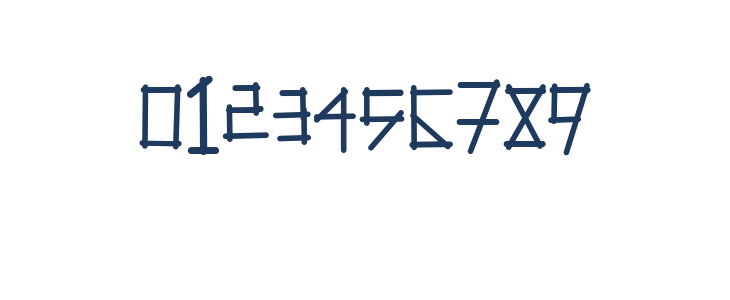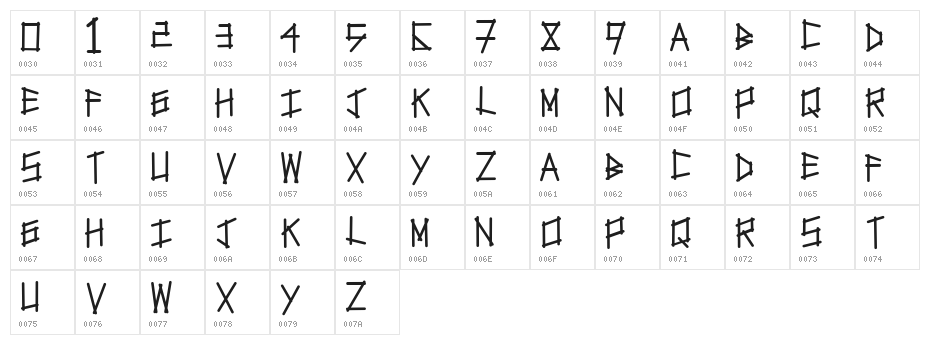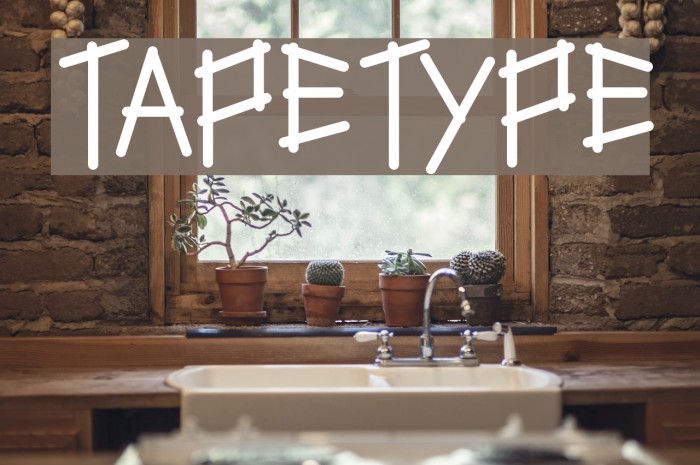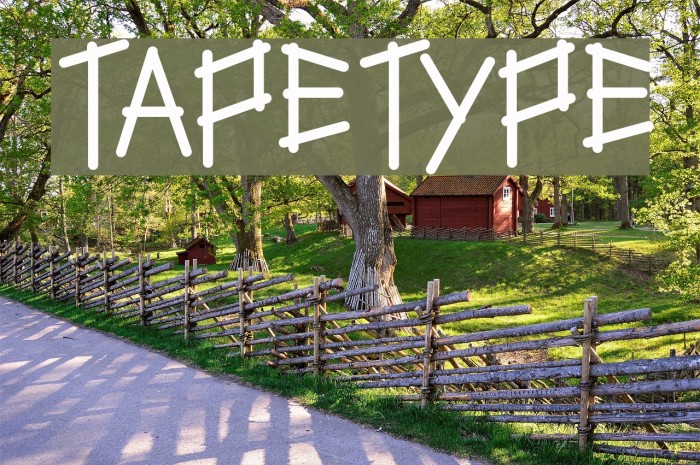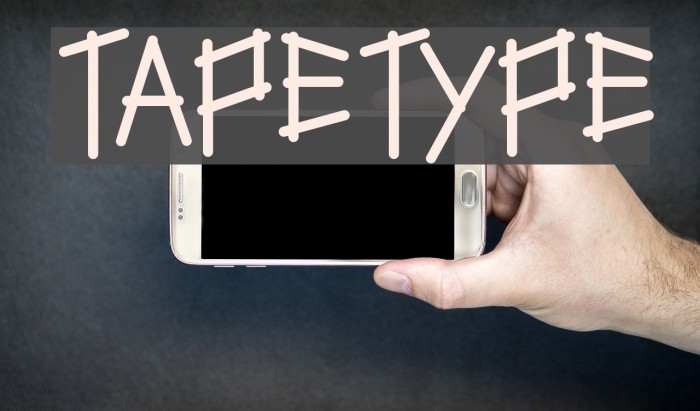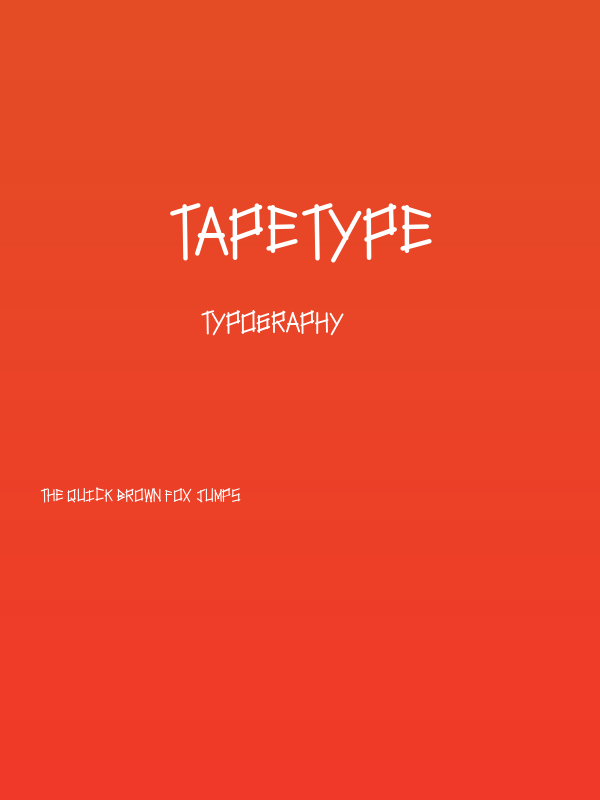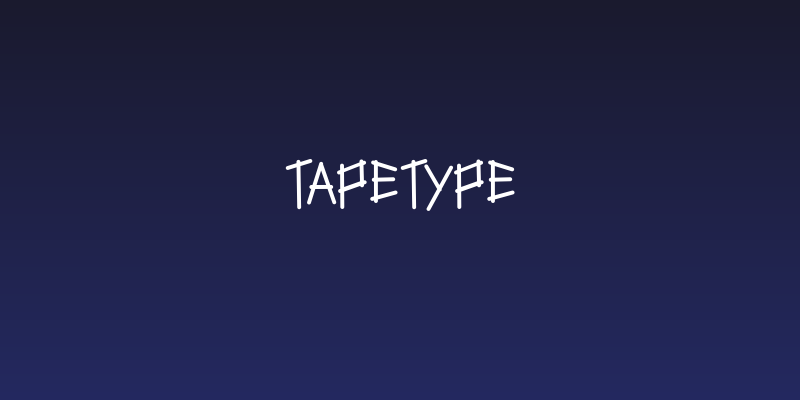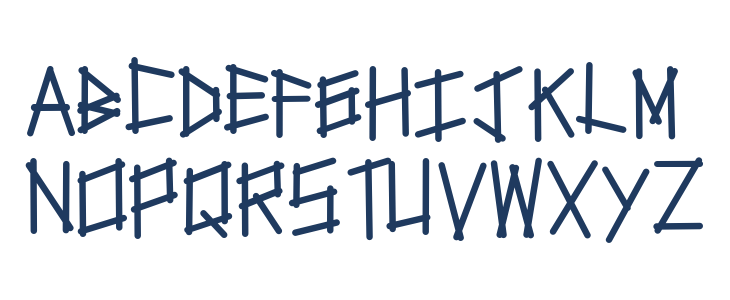
tapetype Font
tapetype Description
This font features a unique, geometric design with a distinct industrial feel. Each character is constructed with bold, straight lines and circular nodes at the intersections, giving it a mechanical and structured appearance. The uppercase and lowercase letters maintain a consistent style, emphasizing uniformity and precision. Numbers and special characters follow the same design principles, ensuring a cohesive look across all glyphs. This font's boldness and distinctive style make it stand out, ideal for projects that require a modern and edgy aesthetic.
Overall StyleModern, Industrial
Proposed ProjectsIdeal for branding, posters, and digital artwork that require a modern, industrial touch.